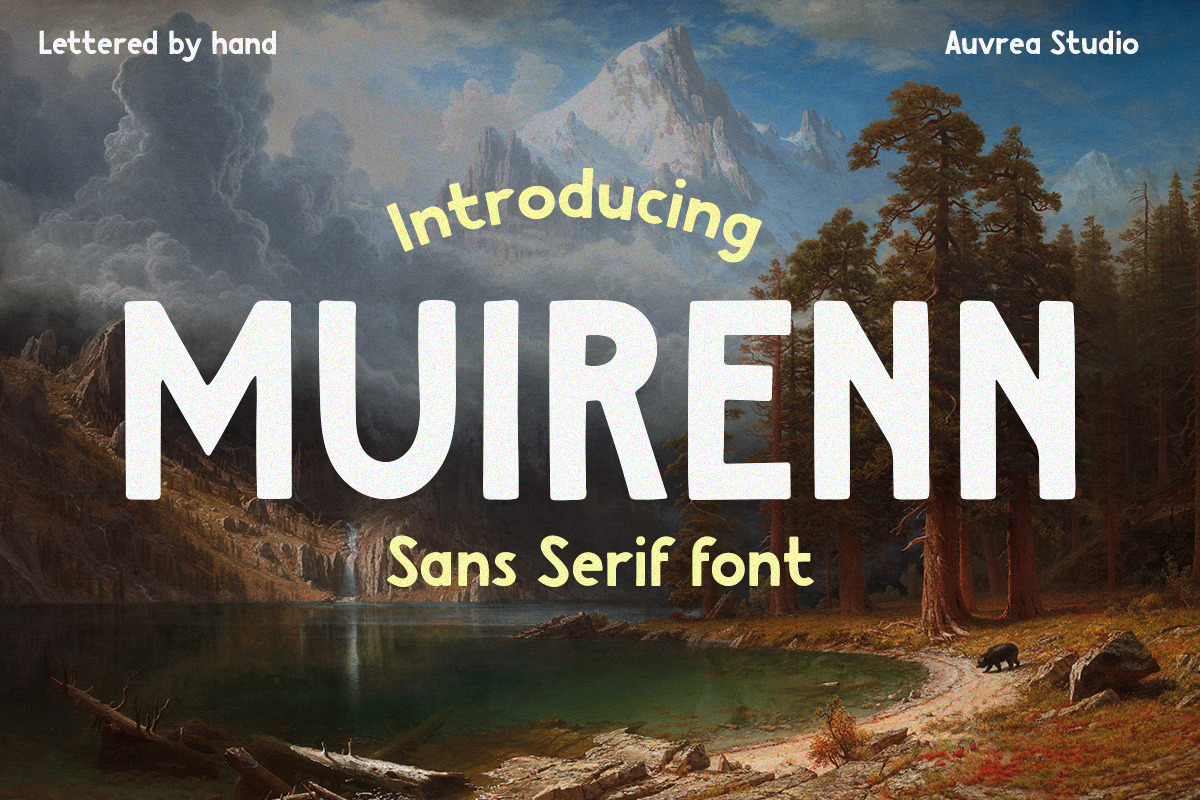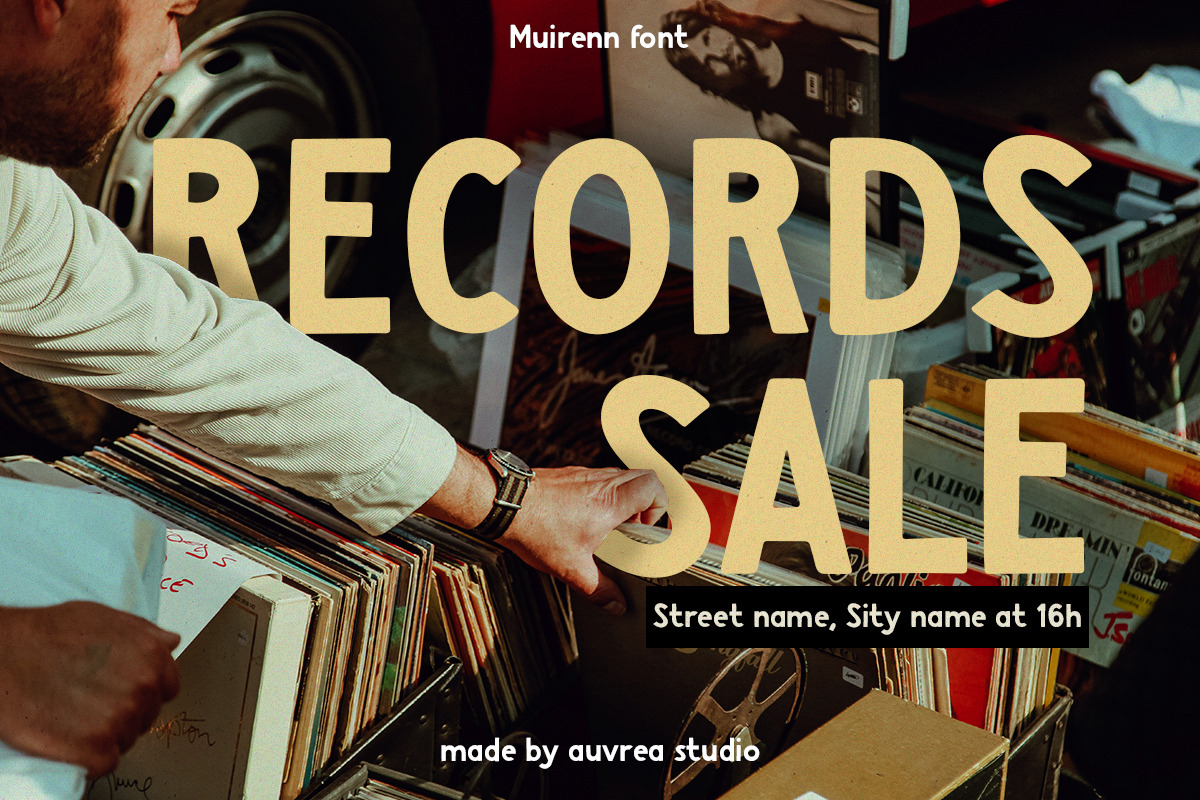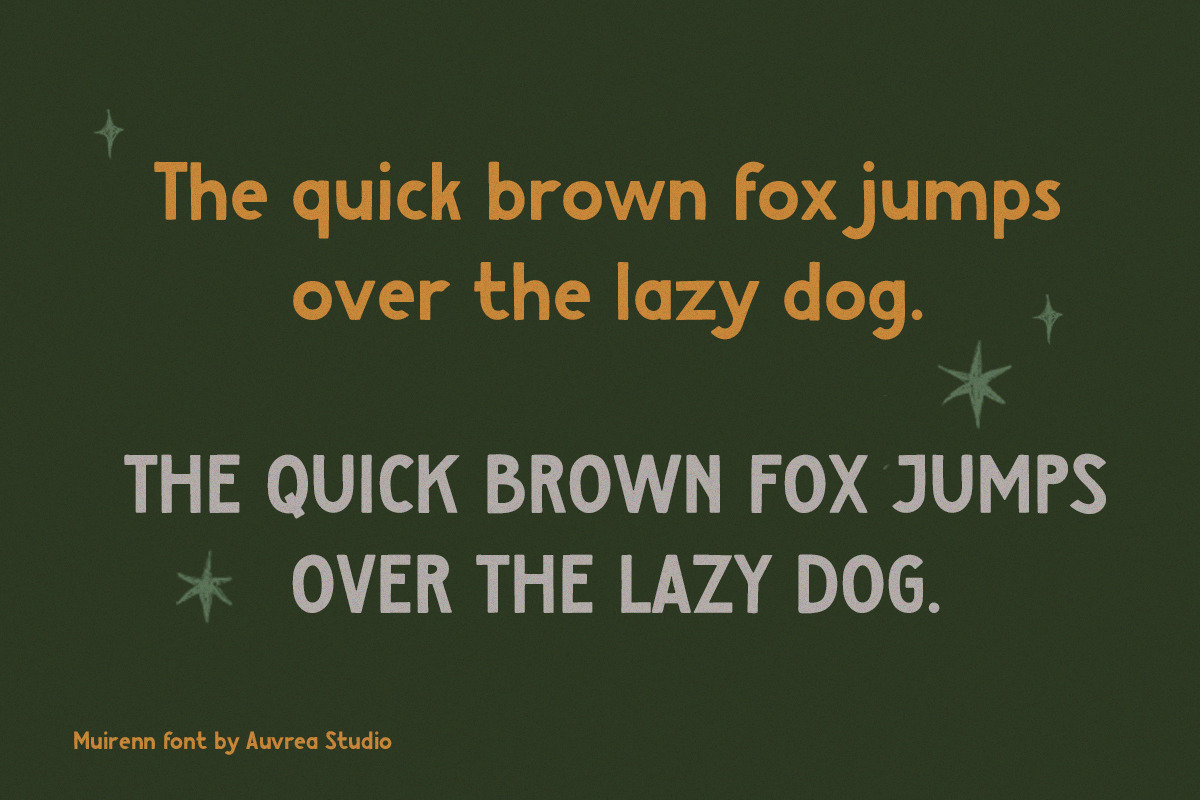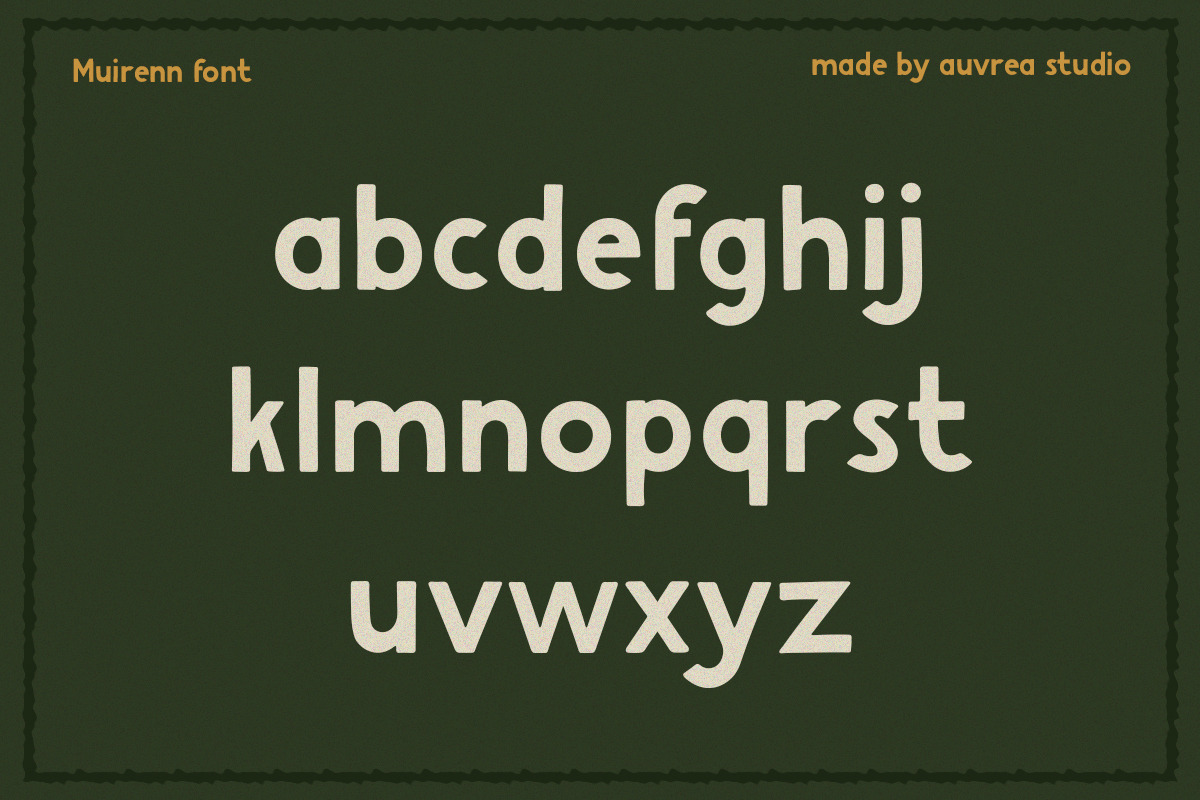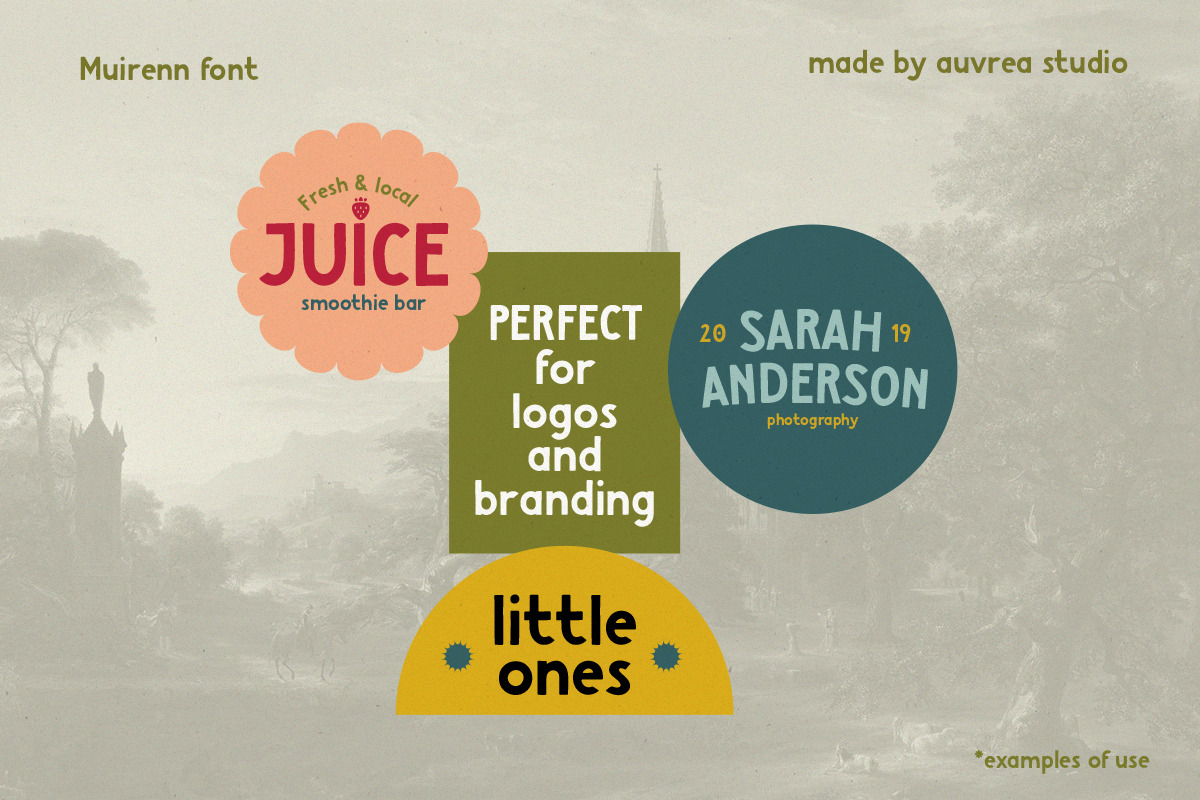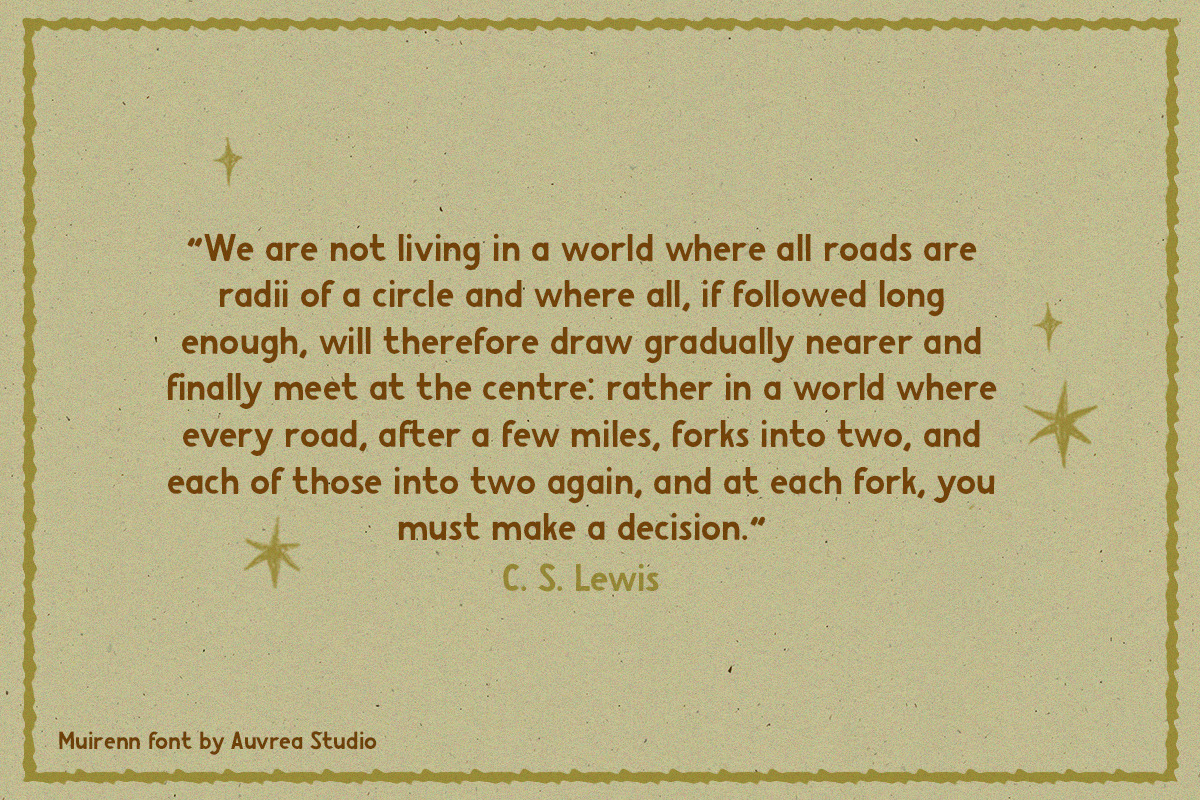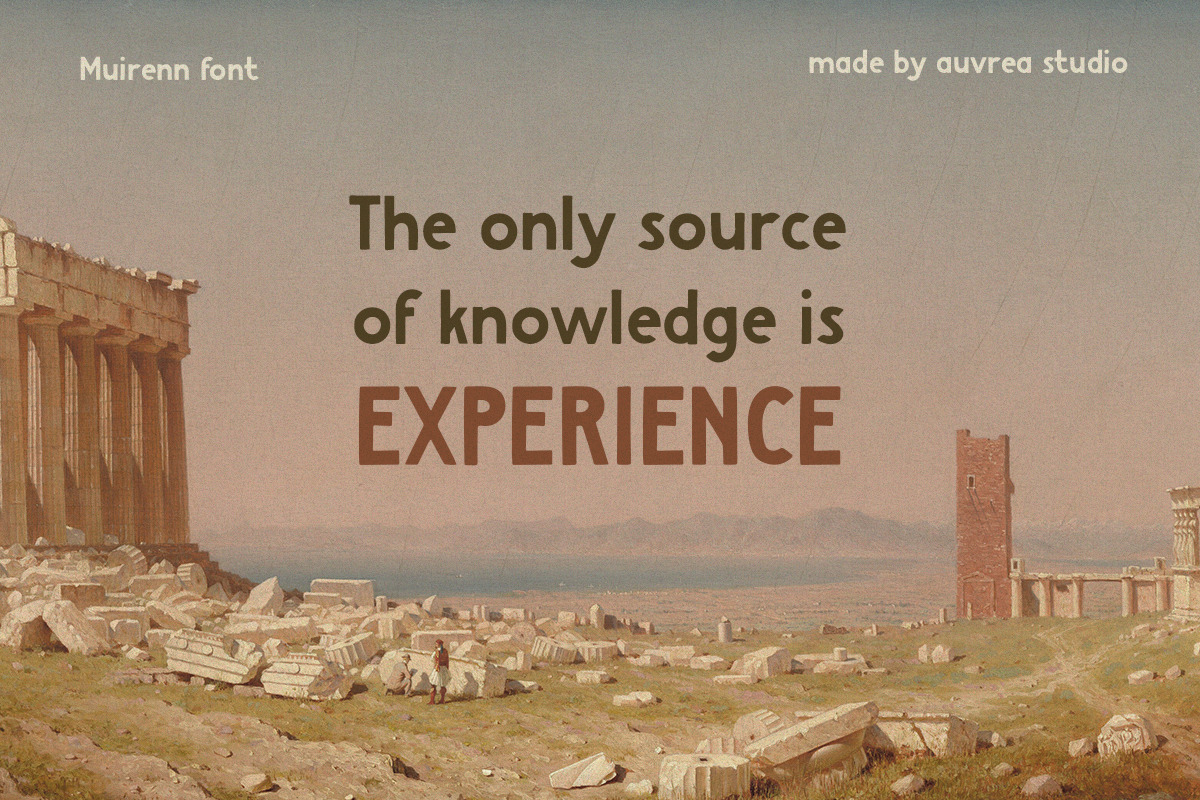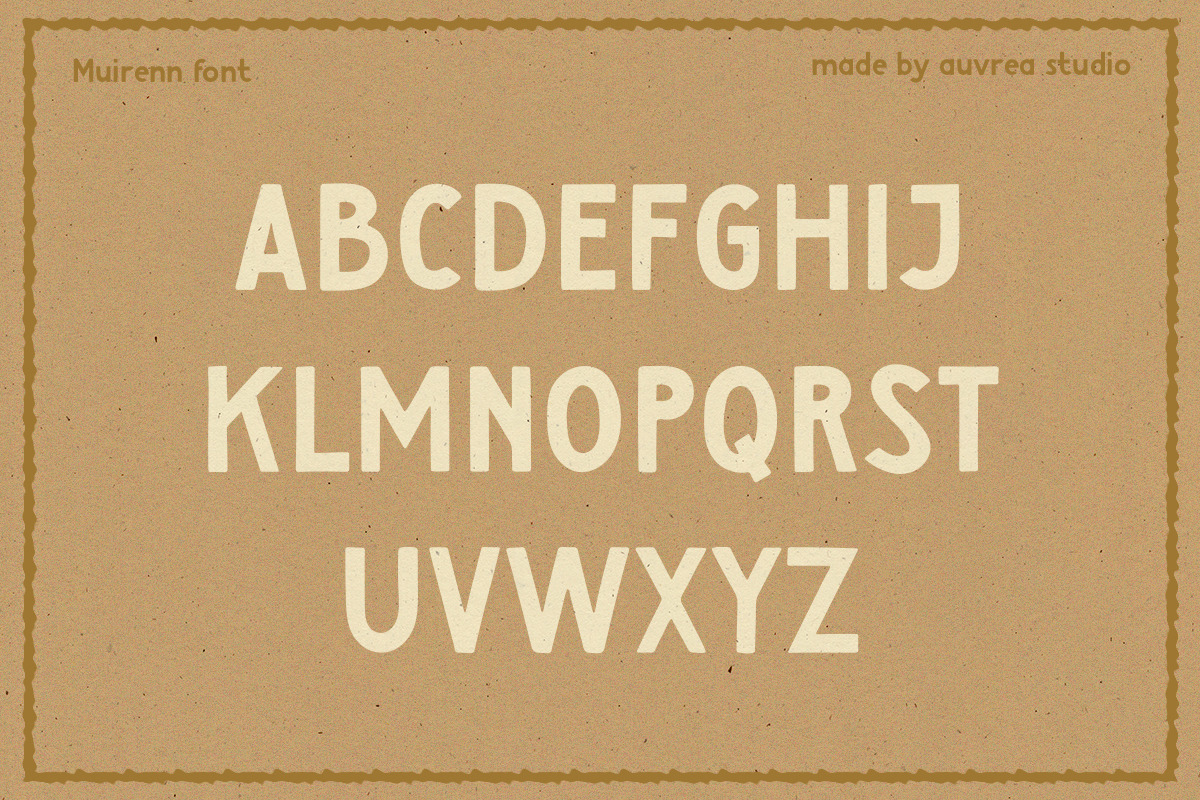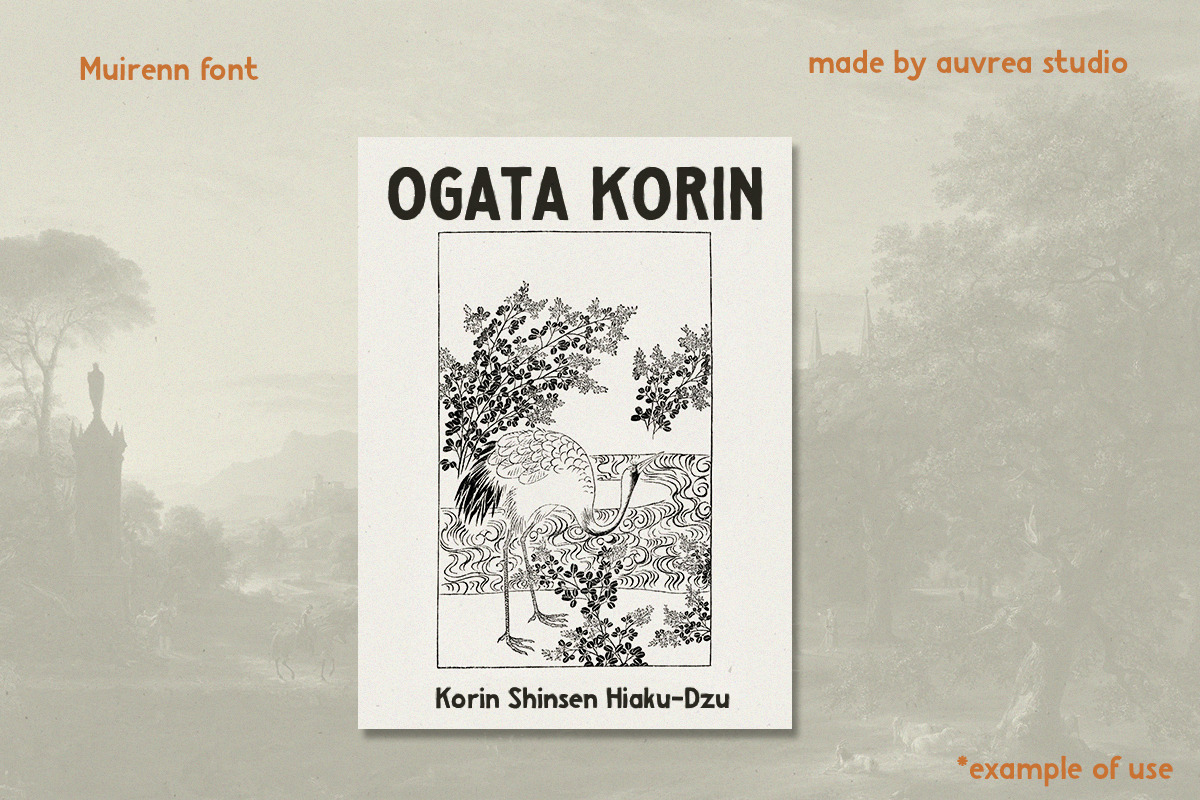
Muirenn | Sans-serif font
Muirenn sans-serif font is a versatile typeface. It can be used as a display font, as well as font for a longer paragraphs.
Muirenn font will be the perfect choice for many different projects: logos, branding, photography, invitations, wedding invitation, quotes, poster, advertisements, postcard, book covers, websites, etc.